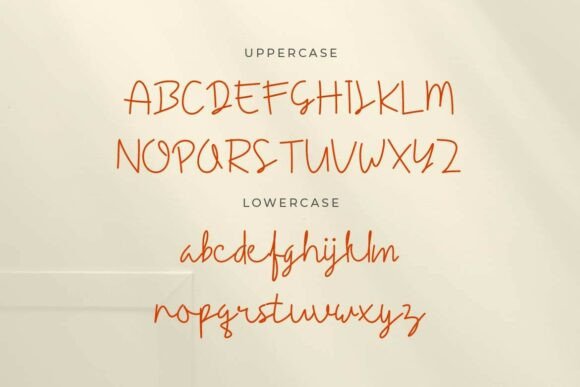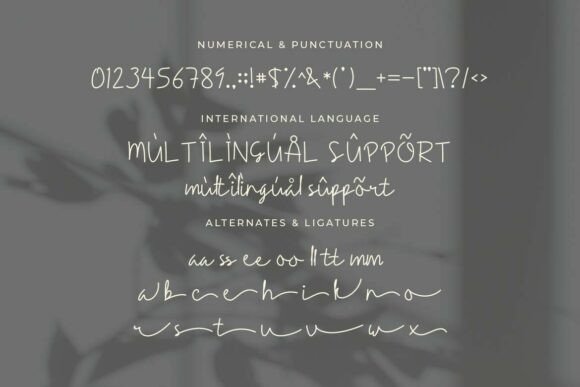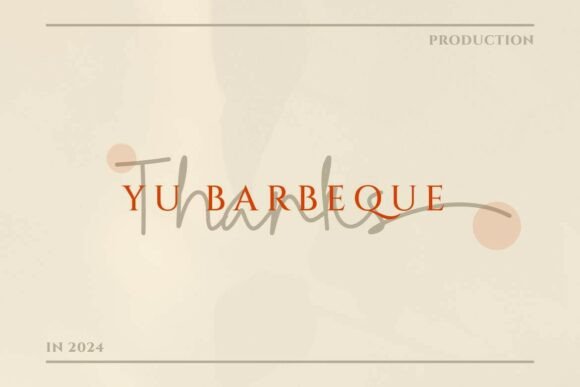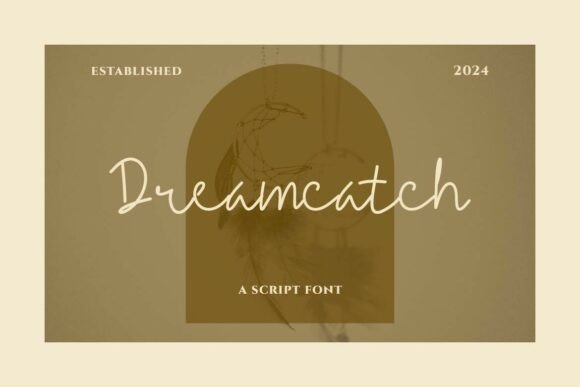
Introduction to Macshues Font
Imagine you’re sitting in a cozy café, surrounded by the gentle hum of creativity. You’re brainstorming ideas for a client’s special project, and the perfect font just pops into your mind. For many designers, that perfect font is Macshues Font – a charming script font that adds a touch of elegance to any design.
| 👤 Author | Artiveko |
Whether you’re working on a wedding invitation, a logo for a new brand, or a social media post, Macshues Font brings a personal feel to your creative project. Its smooth curves, fluid connections, and artistic strokes make it a valuable resource for designers looking to elevate their designs.
With its high-quality design and versatility, Macshues Font is a must-have for any design enthusiast. Plus, with its transparent background option, you can easily layer it over other elements or use it as a standalone design element. And the best part? You can download it for free, making it an accessible design resource for creatives of all levels.
Key Features of Macshues Font
- Unique, hand-crafted font with a transparent background, allowing for seamless integration with various design elements.
- Macshues Font is designed to work well in both print and digital media, making it a versatile design resource.
Honest Review: Macshues Font
I recently stumbled upon the Macshues Font, and I must say it’s been a game-changer for my creative project. The moment I downloaded it, I knew I had stumbled upon something special.
- ✨ High-quality design that exudes sophistication and elegance.
- ✨ Transparent background, making it easy to integrate with any design resource.
- ⚠️ Limited font styles available, which might not be ideal for designers who prefer a wide range of options.
- ⚠️ Some users may find the font a bit too bold, which might not be suitable for every design project.
Overall, I’m thoroughly impressed with the Macshues Font. Its high-quality design and transparent background make it a fantastic addition to any design resource. While it may have its limitations, I believe it’s definitely worth considering for your next creative project.
Macshues Font is a high-quality design resource ideal for creative projects. It offers a unique style and is available for free download. With its transparent background, it’s perfect for adding a touch of elegance to your designs.
Common Use Cases for Macshues Font
Macshues Font is perfect for use in brochures, business cards, and other marketing materials. It’s also ideal for use in social media graphics, presentations, and documents.